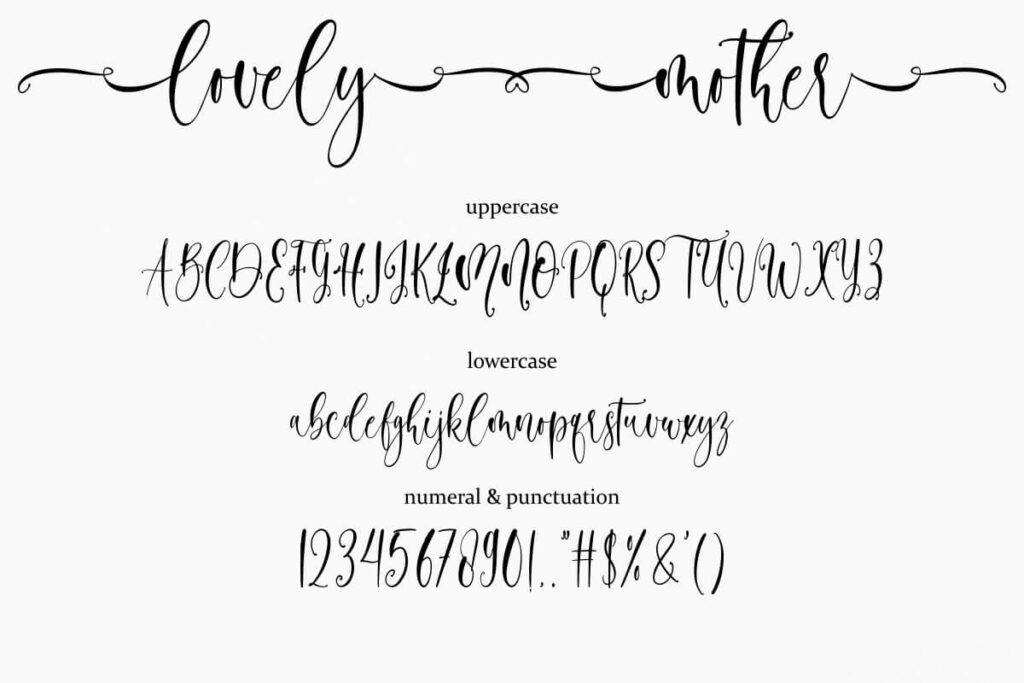
Lovely Mother Calligraphy Script Font
Lovely Mother Script Font is a modern Script calligraphy font featuring swashes at the beginning and end. This Typeface is designed in a contemporary manner with a lovely beginning and end. Elegantly, this Typeface is highly informal and perfect for a variety of design demands. Swashes, ligatures, ss01, ss02, ss03, beginning and ending swashes, connecting swashes, and other features are included in this lovely Font. The Font also supports many languages. Fontspace created and published the Font.
This charming font is ideal for banners and short sentences. It’s perfect for use in displays that need to provide a unique and happy appearance, and it can maintain the viewer’s interest in text thanks to a sense of motion during each glyph. With the vivid colors, the font looks absolutely stunning. The typeface is an excellent choice for any book design.
NameLovely Mother Calligraphy Script Font
Style Script, Calligraphy.
DesignerFontspace